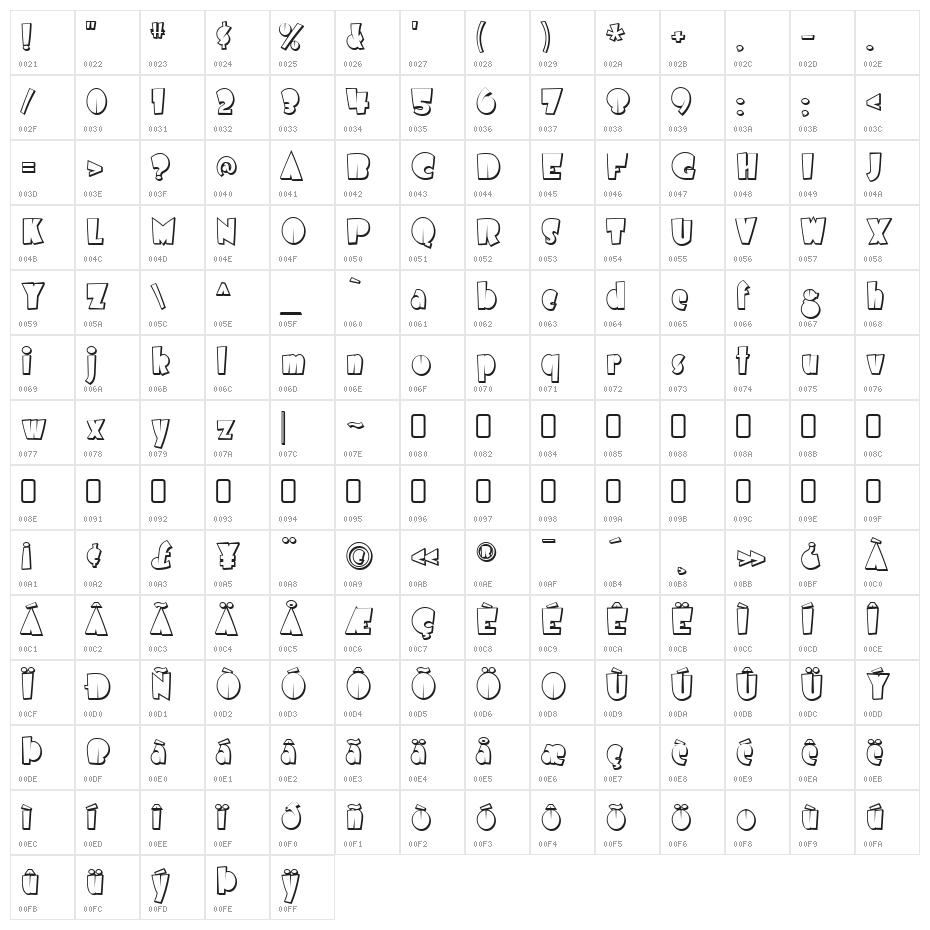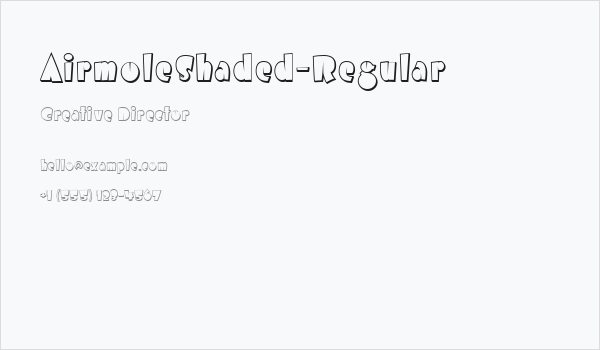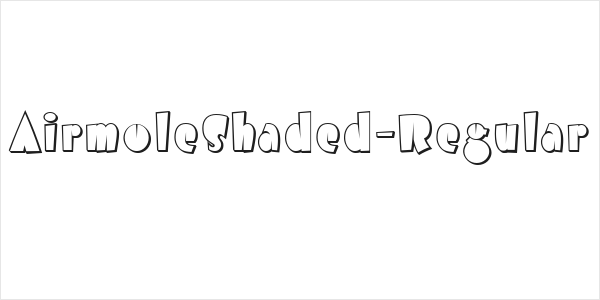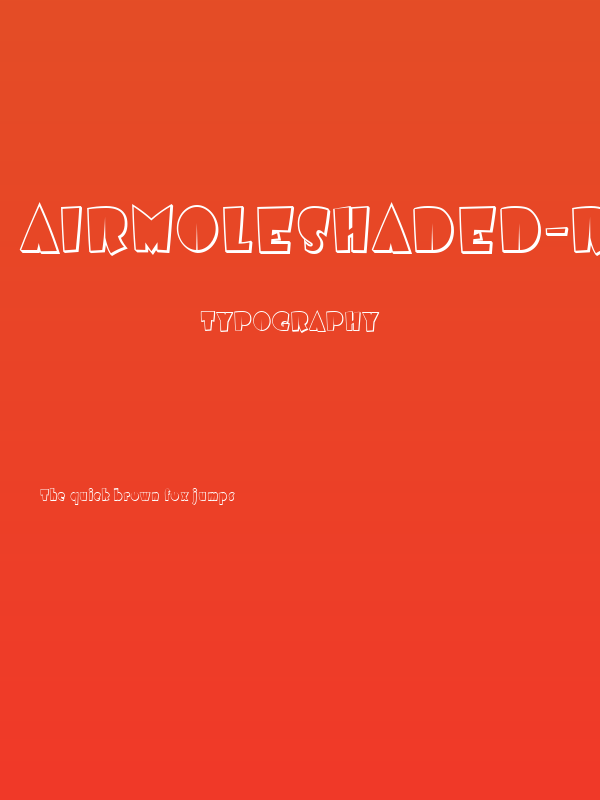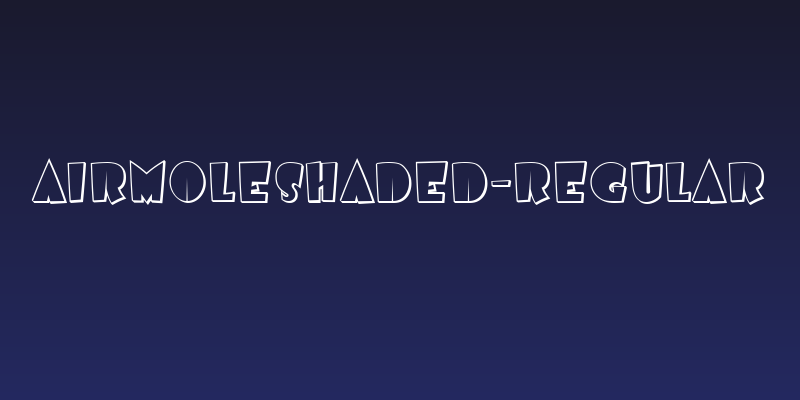
AirmoleShaded-Regular Font
AirmoleShaded-Regular Description
This font features a bold, playful style with a shaded effect that gives it a three-dimensional appearance. The characters are thick and have a unique, artistic flair, making them stand out with their shadowed design. The uppercase and lowercase letters maintain a consistent width, while the numbers and special characters follow the same bold and shaded aesthetic. The font's distinctive look is both eye-catching and fun, suitable for creative and informal applications.
| Use Case | Headlines, Posters, Logos |
| Proposed Projects | Ideal for children's book covers, playful posters, comic strips, and any design needing a fun and engaging typeface. |